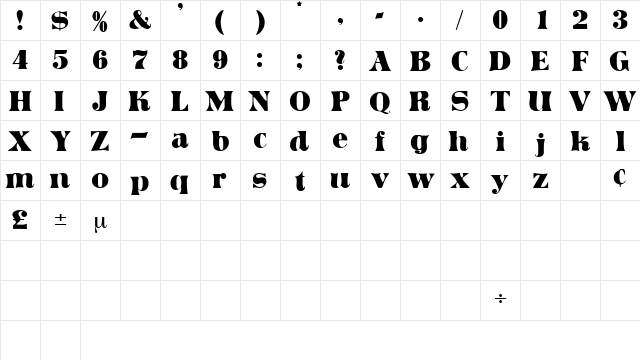
ArticulaDisplaySSK Regular
Design Context for ArticulaDisplaySSK Typeface
ArticulaDisplaySSK brings ornamental detail and strong personality to headlines and identities, where visual impact matters more than quiet functionality.
Font Pairing: Pair with a clean neutral sans-serif for body copy to let ArticulaDisplaySSK's character lead without overwhelming the composition.
Pro Tip: Use ArticulaDisplaySSK exclusively at display sizes — it was designed to be seen, not read at length. Let a neutral companion handle body copy.